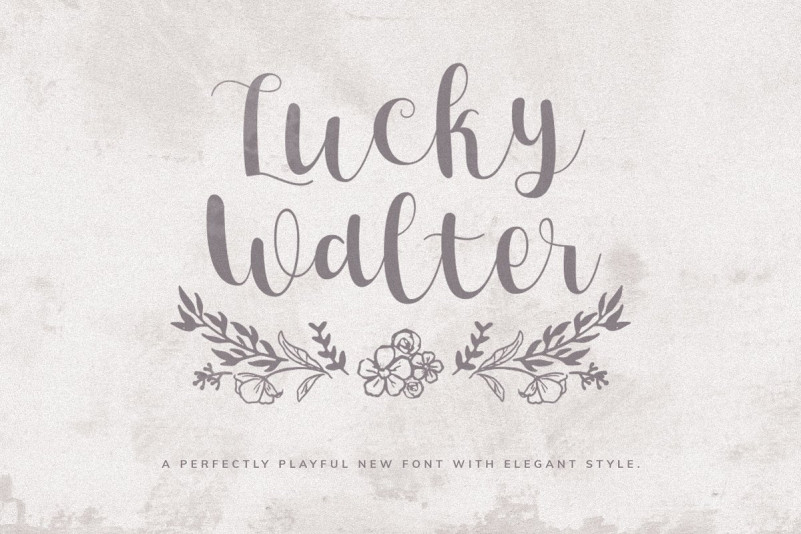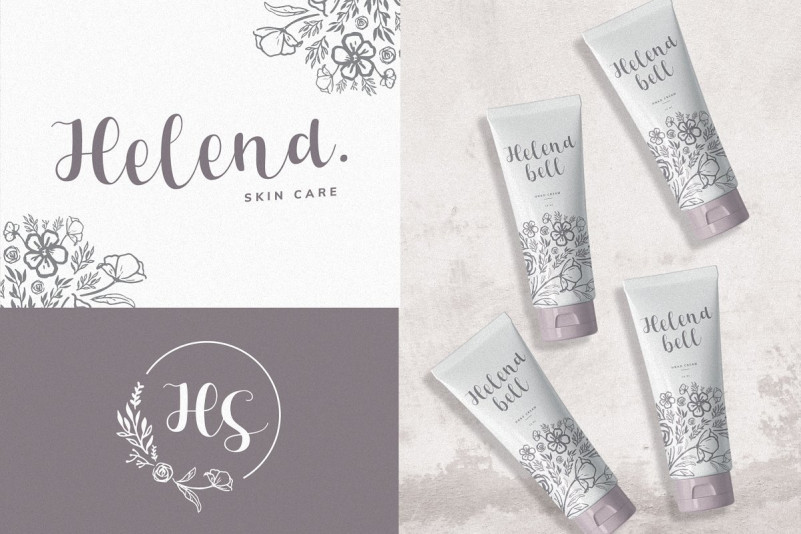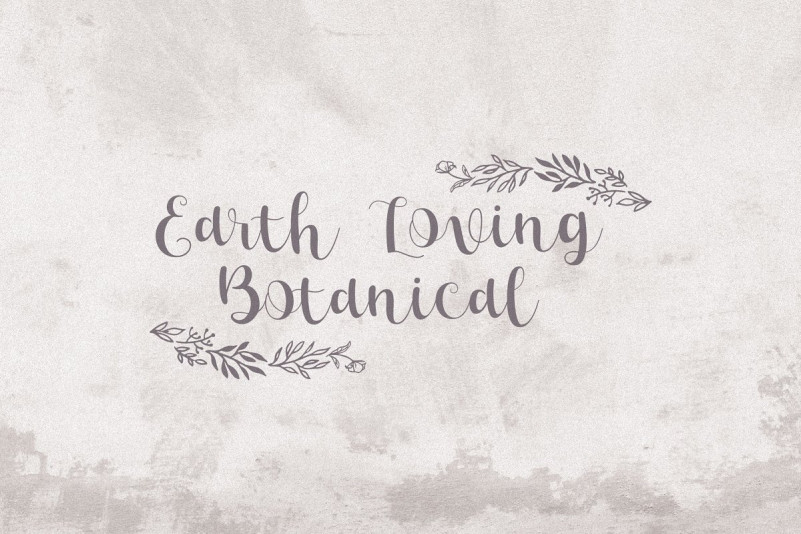
Lucky Walter Font
Introducing our latest product the Lucky Walter – Elegant Style Font! .It is free-flowing, feminine, fashionable and friendly. Lucky Walter is perfect for fashion, e-commerce brands, trend blogs, or any business that wants to appear casual and chic.